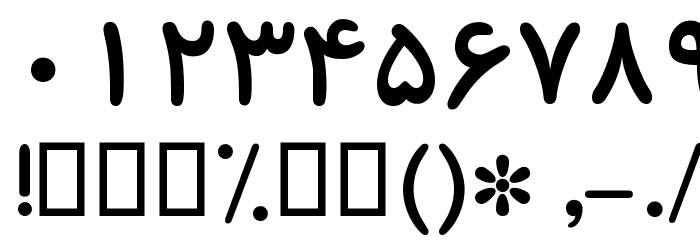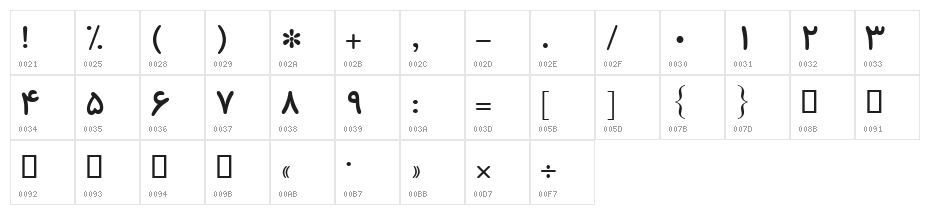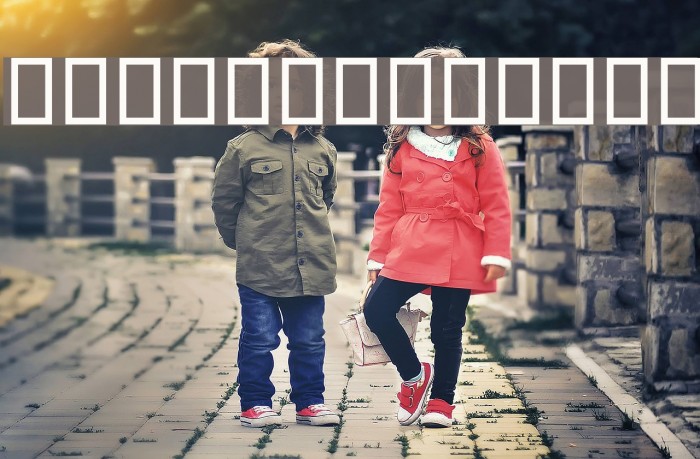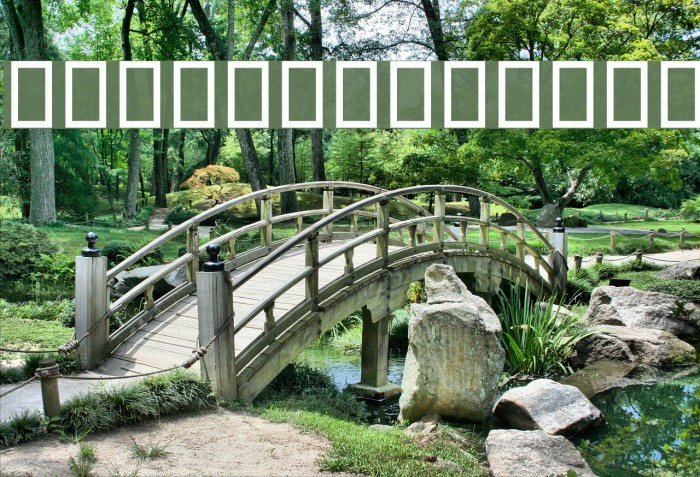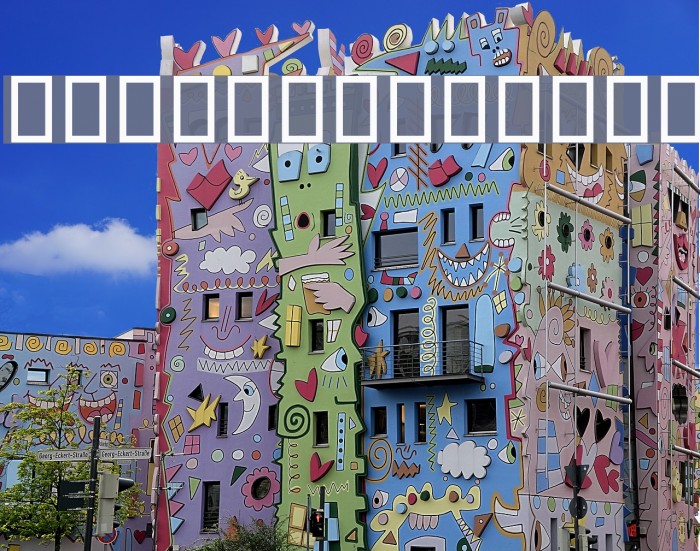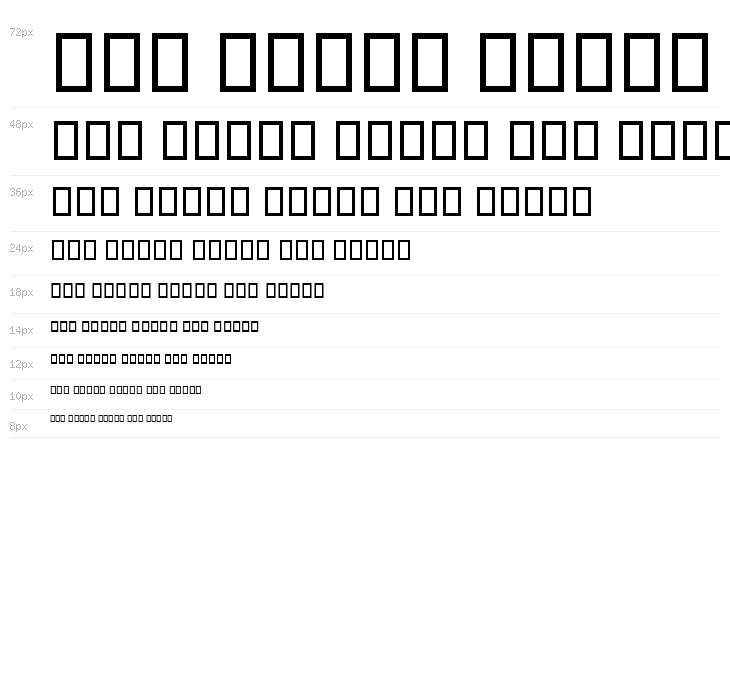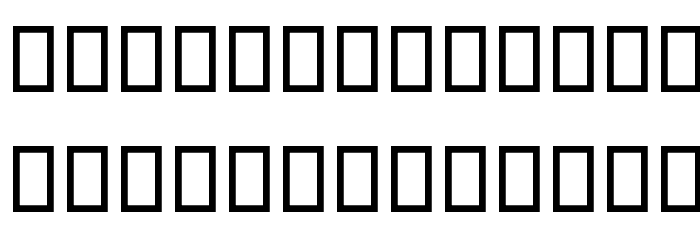
Oshtok Font
Oshtok Description
This font features a playful and whimsical style, characterized by its rounded and flowing letterforms. The numbers and special characters maintain the same playful aesthetic, with curves and loops that add a sense of movement and fun. The overall design is consistent across all characters, providing a cohesive look that is both approachable and unique. The font's style is reminiscent of hand-drawn or cartoon-like lettering, making it suitable for projects that require a lighthearted and informal touch.
| Use Case | Logos, Posters, Invitations |
| Proposed Projects | Ideal for children's books, playful branding, casual invitations, and creative posters. |